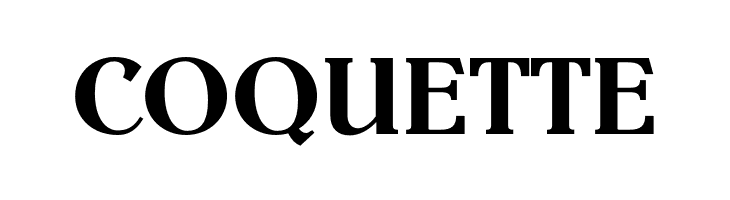
A bold serif typeface with strong strokes and pronounced serifs, offering clarity and elegance.
A bold serif font with strong strokes and pronounced serifs.